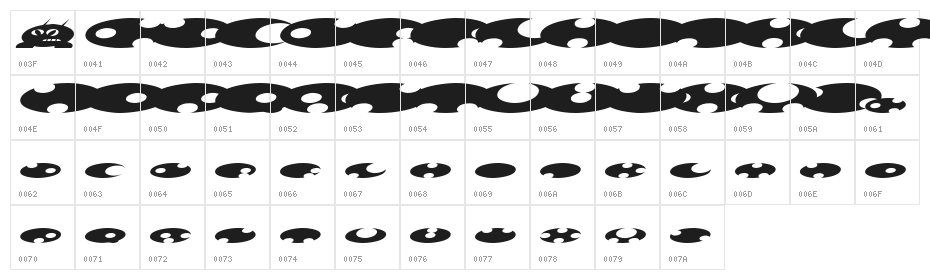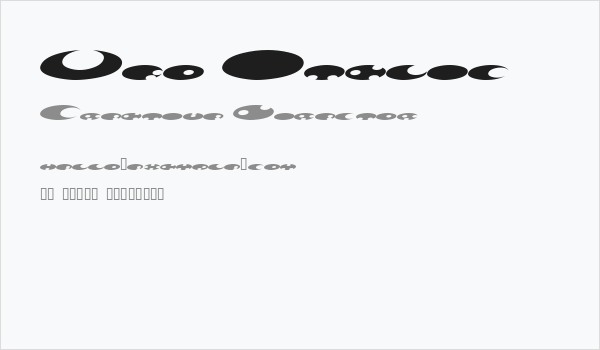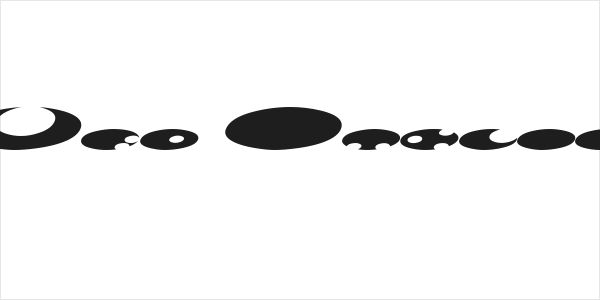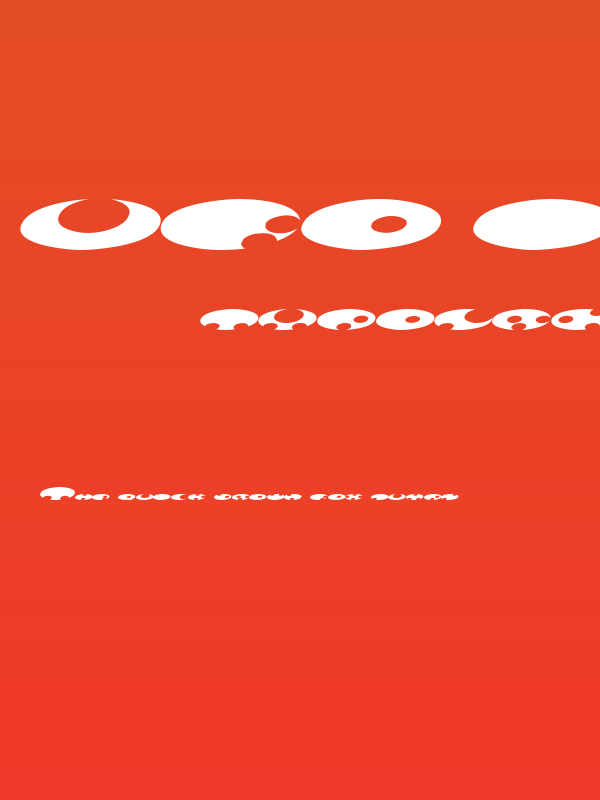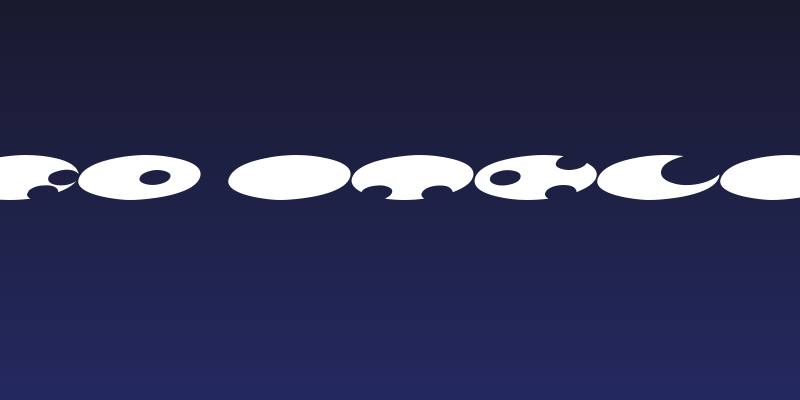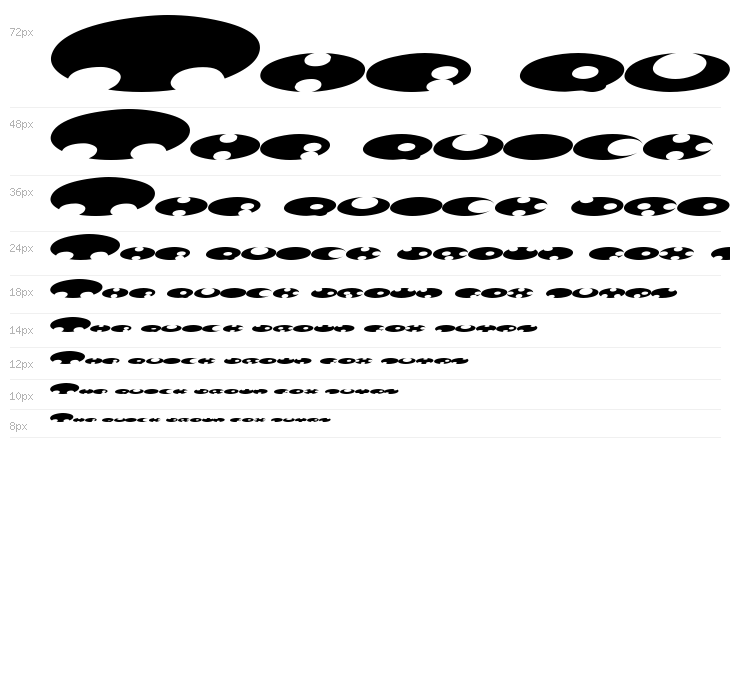
Ufo Italic Font
Ufo Italic Description
This font exhibits a highly stylized and futuristic design, characterized by its bold, italicized forms that resemble abstract shapes or alien symbols. The letters are composed of thick, rounded strokes with varying widths, creating a dynamic and eye-catching appearance. The overall design is playful and unconventional, making it suitable for creative and modern applications. The characters are closely spaced, enhancing the compact and cohesive look of the text. This font's unique style is ideal for projects that require a distinctive and memorable visual impact.
| Overall Style | Futuristic, Decorative |
| Proposed Projects | Ideal for sci-fi themed posters, video game titles, or branding for tech startups. |